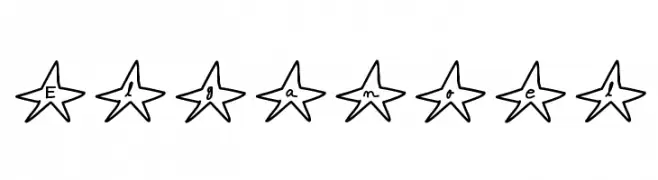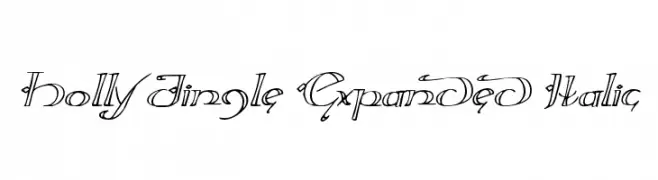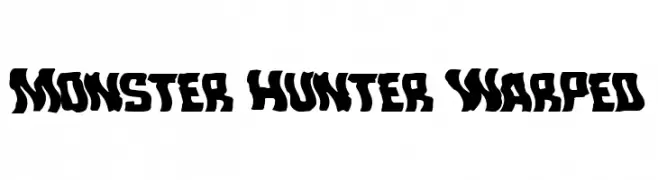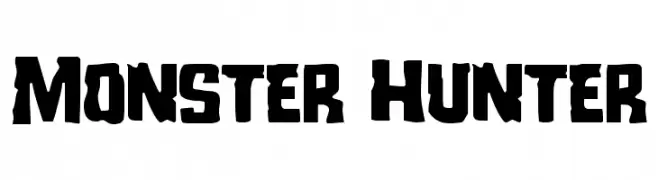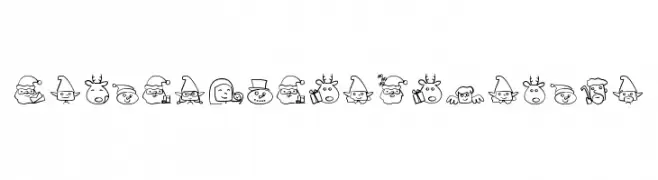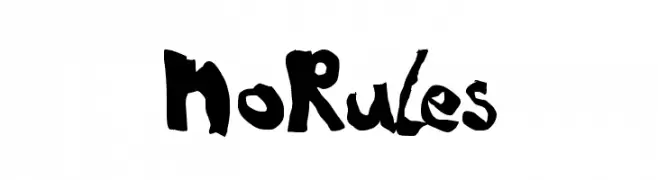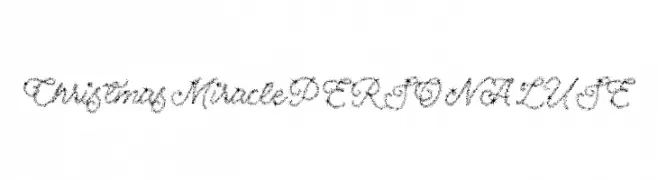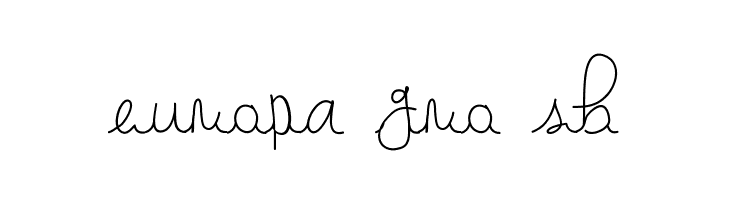
( Gabbi )
A playful and casual handwritten font with fluid, connected strokes.
( Gaelleing )
A whimsical, festive font with characters in star shapes and numbers as Christmas trees.
A whimsical, decorative font with expanded, italicized characters and high contrast strokes.
A bold, warped font with dynamic, adventurous letterforms.
A bold, rugged font with jagged edges and a primal, adventurous style.
( Lettersiro Studio - Muhammad Sirojuddin - creativemarket.com/Lettersiro )
A bold, handwritten font with dynamic strokes and a playful style.
( M. Ilham Maulana )
A playful, hand-drawn font with dynamic curves and a whimsical style.
( MeCreativa - Michela Ferretti - www.mecreativa.com )
A festive dingbat font with charming Christmas-themed illustrations.
( Menchulica - Menchu Gómez Martín - menchulica.com )
A playful, hand-drawn font with bold, irregular characters.
( Måns Grebäck - www.mansgreback.com )
A festive, star-studded script font perfect for holiday-themed projects.